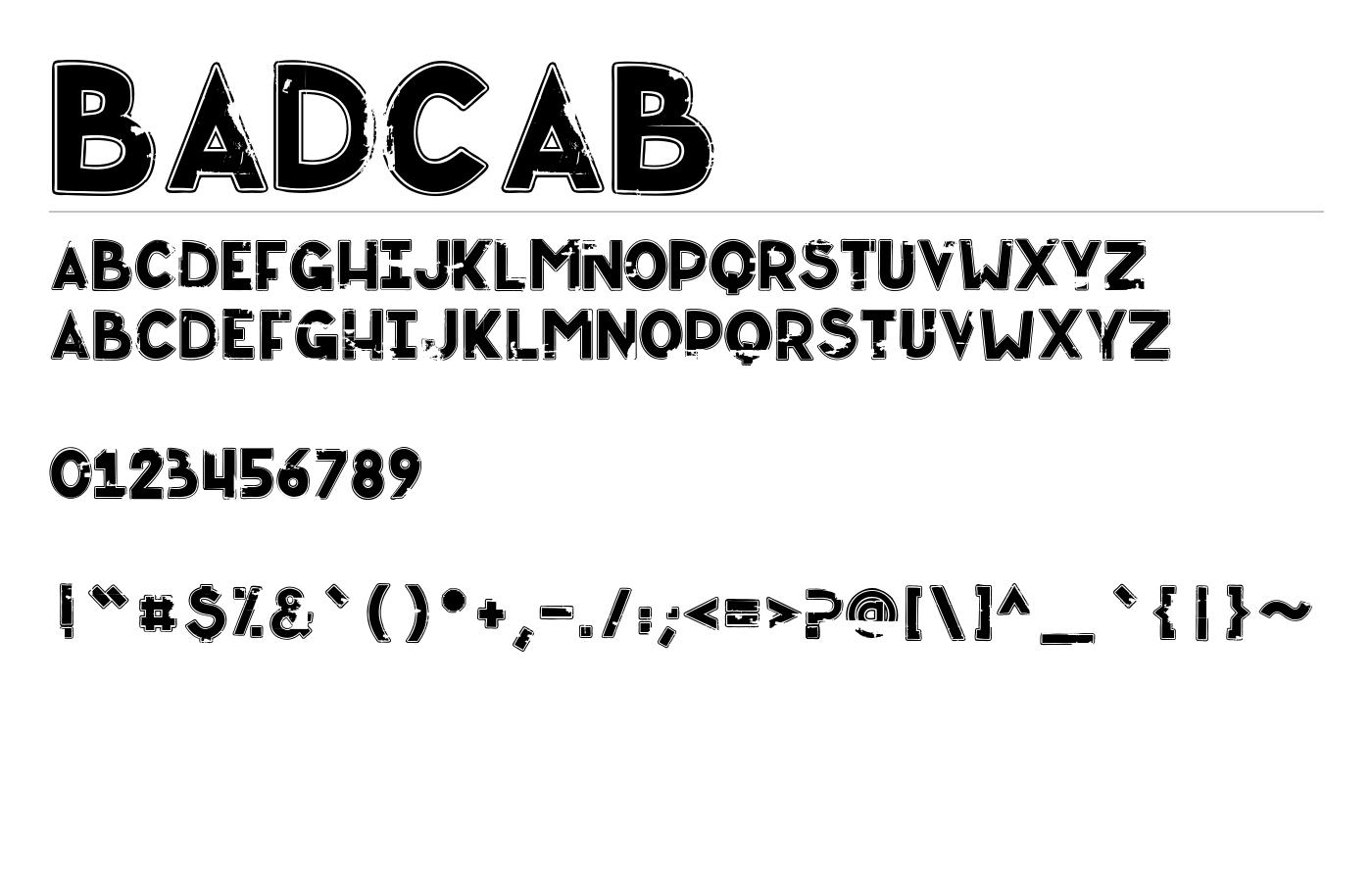
Badcab is a bold, uppercase sans serif font with a distressed, grunge texture that gives it a rugged and edgy character. Its blocky letterforms combined with worn, imperfect details make it ideal for designs that want to convey a rebellious or vintage industrial feel. This font works well in attention-grabbing headlines, posters, and branding where a strong, urban attitude is desired.
Badcab Font
About Badcab Font